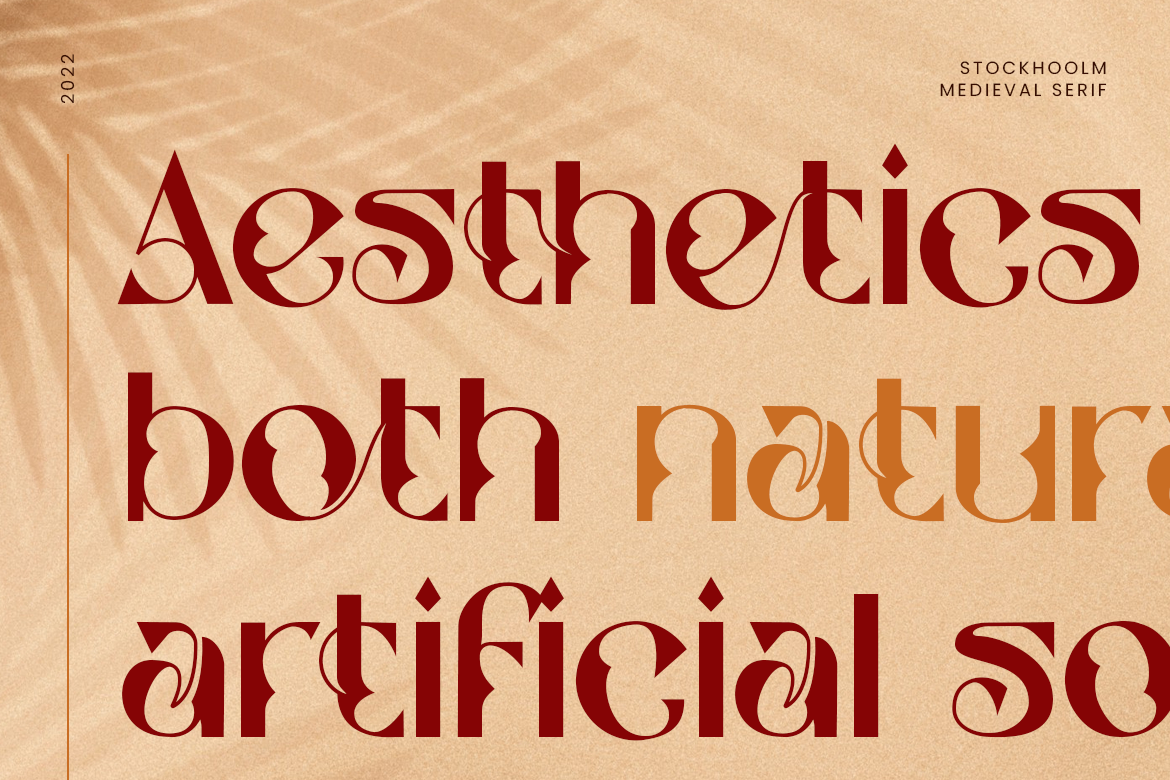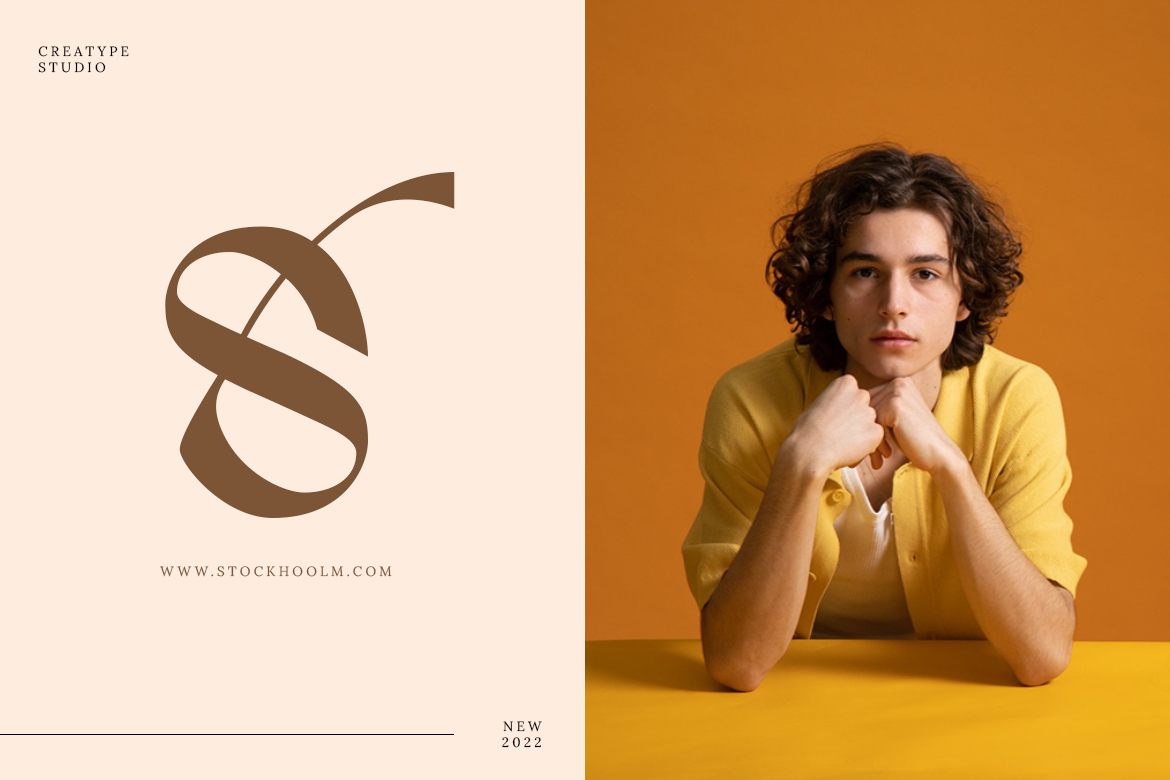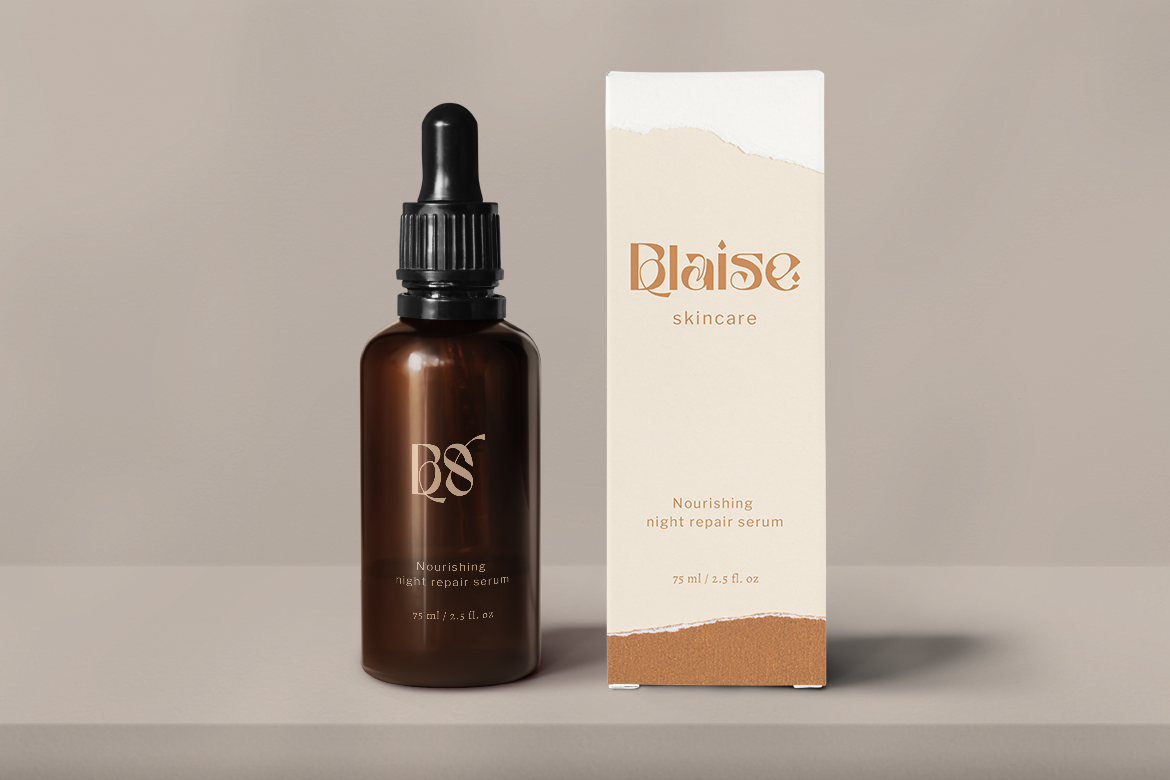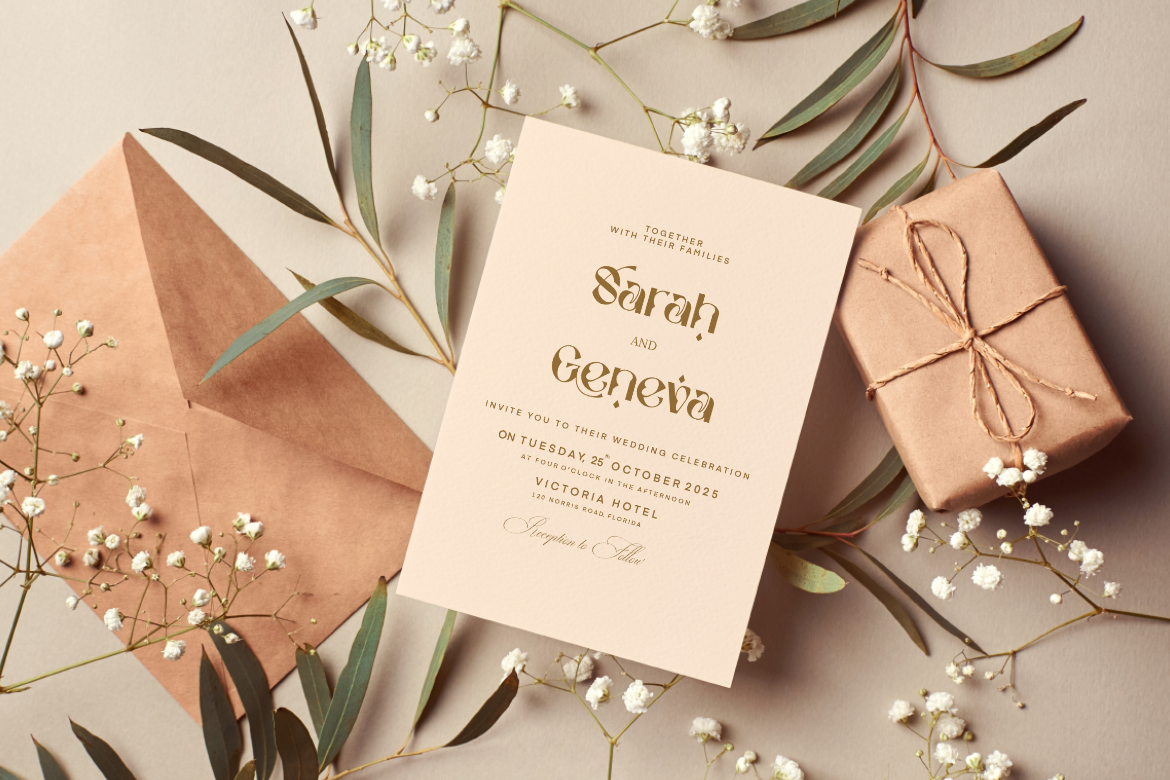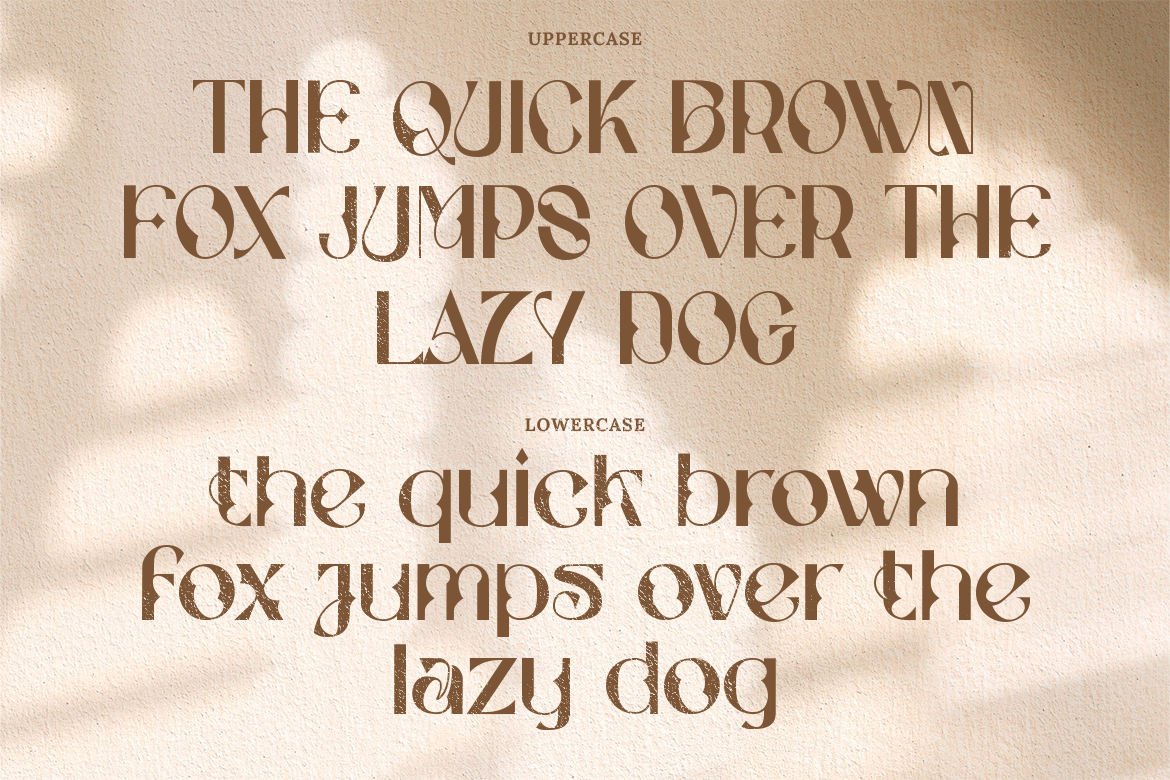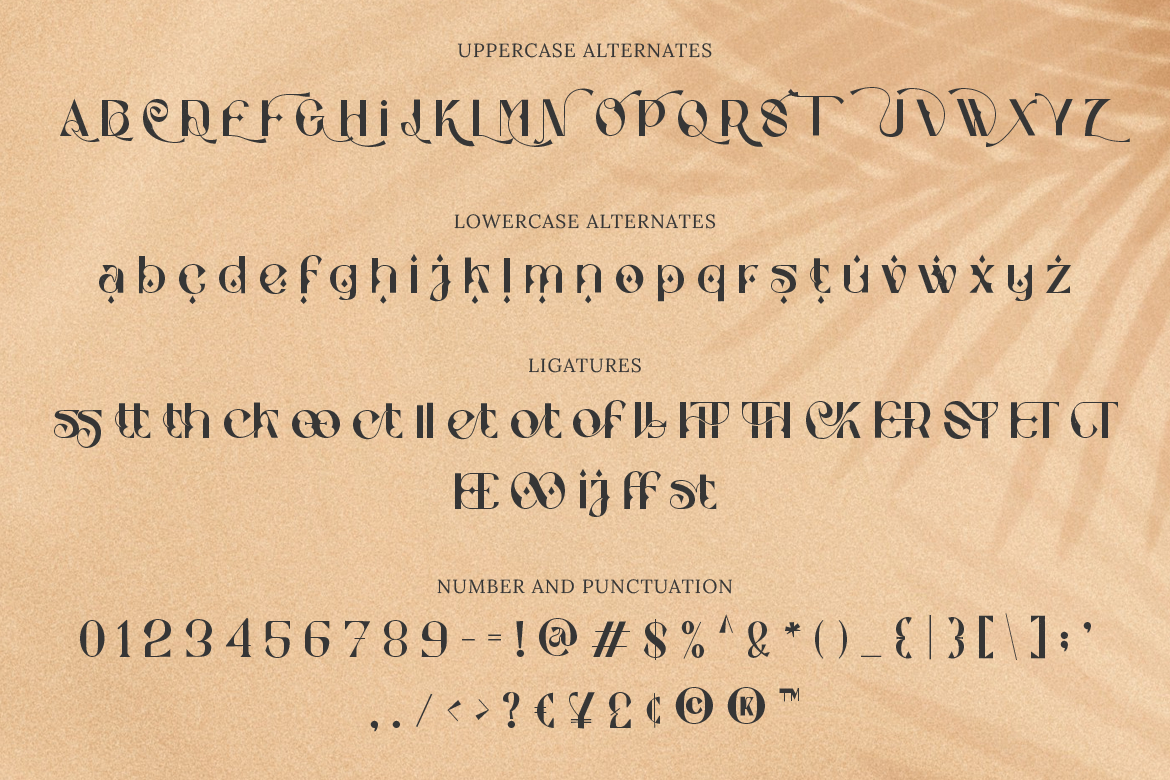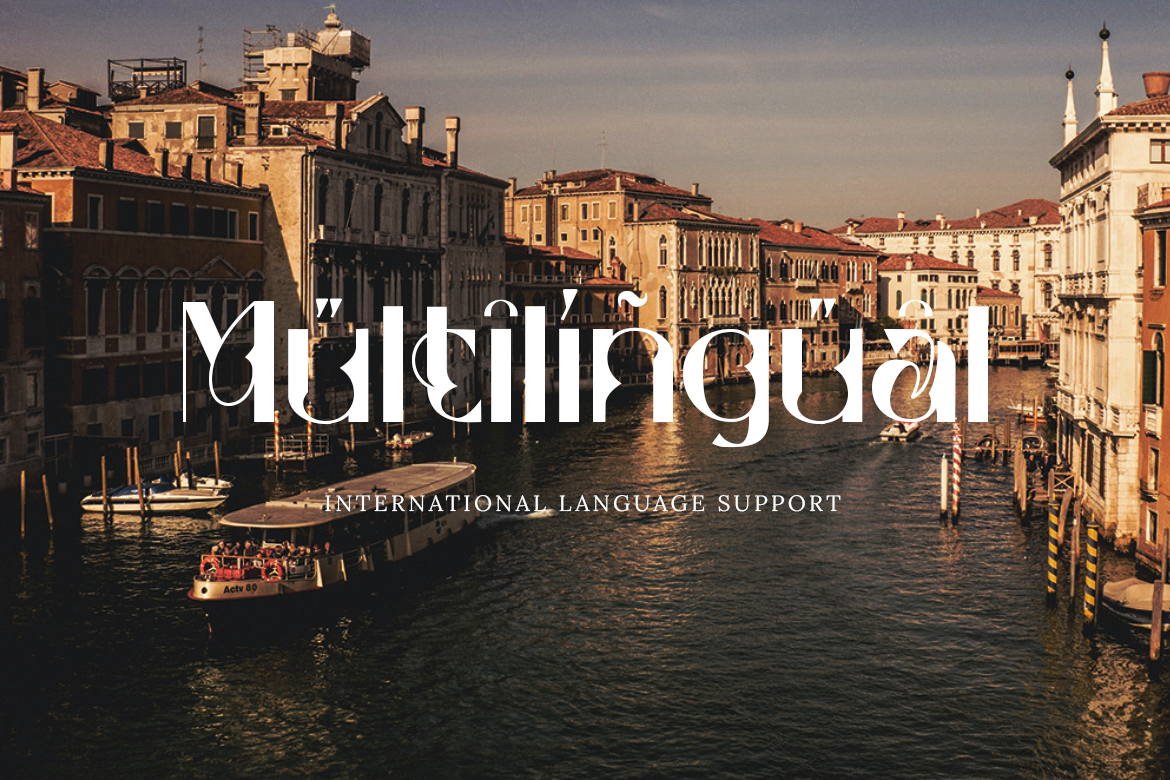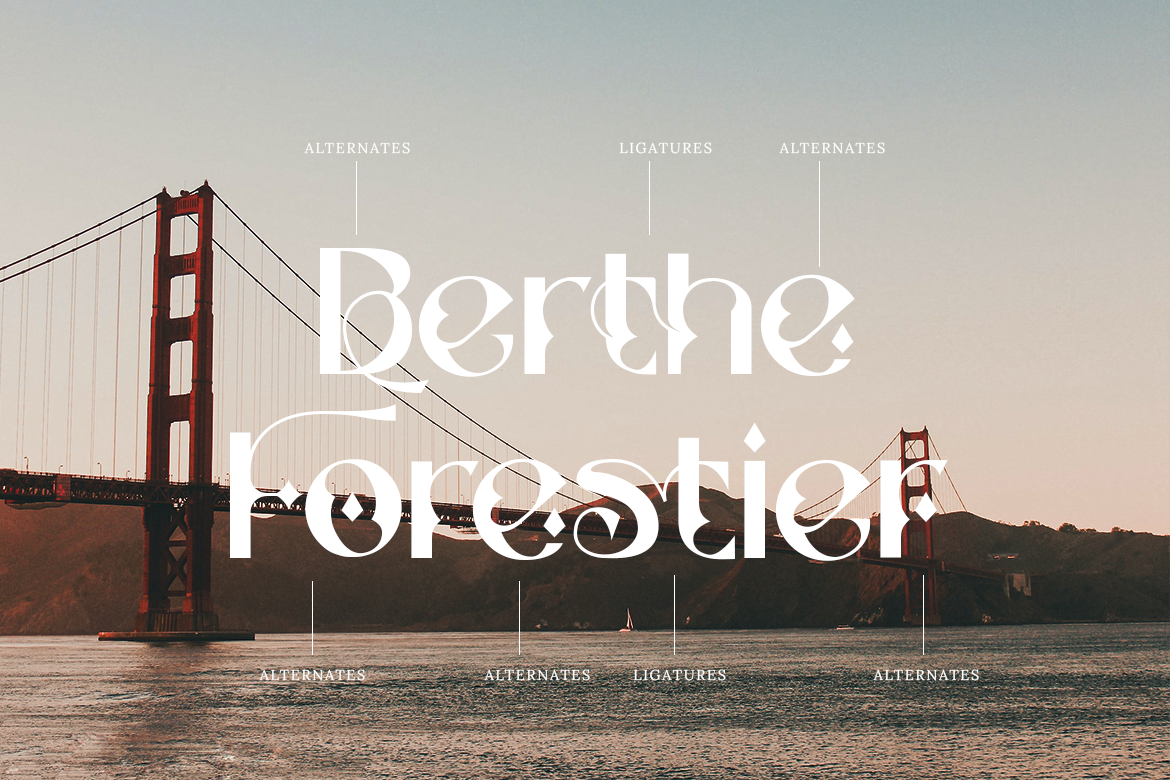
Stockhoolm Medieval Serif
Stockhoolm is a unique typeface that combines wavy and sharp looks. Stockhoolm will make your design project stand out and attractive.
Stockhoolm is perfect for branding projects, logo, wedding designs, social media posts, advertisements, product packaging, product designs, label, photography, watermark, invitation, stationery and any projects that need handwriting taste.